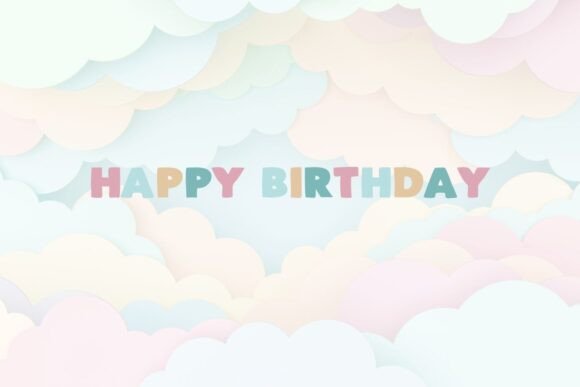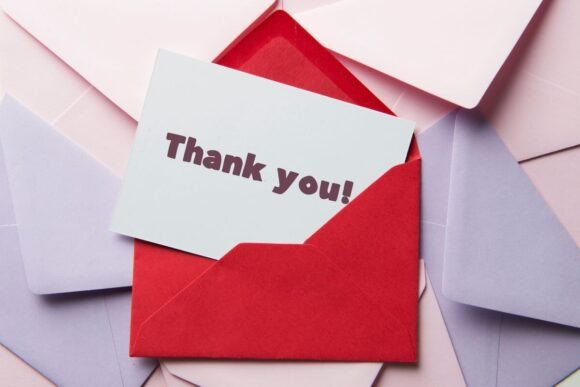
Introducing Cartoon Font: The Playful and Eye-Catching Choice for Your Creative Projects
Are you looking for a font that can add a dash of fun and energy to your creative projects? Look no further than Cartoon Font! This playful and eye-catching font is designed to bring a smile to your audience’s face with its bold, rounded edges and whimsical characters. Inspired by the charm of classic cartoons, Cartoon Font is the perfect choice for designers and crafters who want to add a lively and approachable feel to their work.
The Characteristics of Cartoon Font
So, what makes Cartoon Font so special? Here are just a few of its key characteristics:
- Bold and Rounded Edges: Cartoon Font features bold, rounded edges that give it a friendly and approachable feel. Perfect for logos, posters, and other creative projects, this font is sure to grab attention and make a lasting impression.
- Whimsical Characters: The characters in Cartoon Font are designed to be playful and whimsical, with a touch of nostalgia for classic cartoons. From the curved lines to the exaggerated features, every character is crafted to bring a smile to your audience’s face.
- Highly Legible: Despite its playful nature, Cartoon Font is highly legible, making it perfect for use in a variety of creative projects, from titles and headings to body text and more.
The Benefits of Using Cartoon Font
So, why should you choose Cartoon Font for your creative projects? Here are just a few of the benefits of using this fun and playful font:
- Adds a Pop of Personality: Cartoon Font adds a pop of personality to any design, making it perfect for brands and projects aimed at all ages. Whether you’re working on a logo, poster, or other creative project, this font is sure to make your text stand out.
- Ideal for Playful and Creative Projects: Cartoon Font is perfect for playful and creative projects, such as children’s books, cartoons, and comics. It’s also great for use in craft projects, such as scrapbooking and card making.
How to Use Cartoon Font in Your Creative Projects
Now that you know more about Cartoon Font, let’s talk about how to use it in your creative projects. Here are a few ideas to get you started:
- Logos and Branding: Use Cartoon Font to create a fun and playful logo for your business or brand. This font is perfect for companies that want to add a dash of personality to their branding.
- Posters and Flyers: Add a pop of personality to your posters and flyers with Cartoon Font. This font is perfect for advertising events, products, and services that are fun and playful.
- Children’s Books and Comics: Cartoon Font is perfect for use in children’s books and comics. Its playful and whimsical nature makes it a great choice for stories and adventures aimed at kids.
- Craft Projects: Use Cartoon Font to add a personal touch to your craft projects, such as scrapbooking, card making, and DIY gifts.
Tips and Tricks for Getting the Most Out of Cartoon Font
Here are a few tips and tricks for getting the most out of Cartoon Font:
- Experiment with Colors: Cartoon Font looks great in a variety of colors, so don’t be afraid to experiment and find the perfect hue for your project.
- Mix and Match with Other Fonts: Cartoon Font can be paired with a variety of other fonts to create a unique and eye-catching look.
- Use it Sparingly: While Cartoon Font is playful and fun, it can be overwhelming if used too much. Use it sparingly to add a pop of personality to your design.
In conclusion, Cartoon Font is a playful and eye-catching font that’s perfect for designers and crafters who want to add a dash of fun and energy to their creative projects. With its bold, rounded edges and whimsical characters, this font captures the charm of classic cartoons and adds a pop of personality to any design. Whether you’re working on a logo, poster, or other creative project, Cartoon Font is the go-to choice to make your text stand out and bring a smile to your audience.